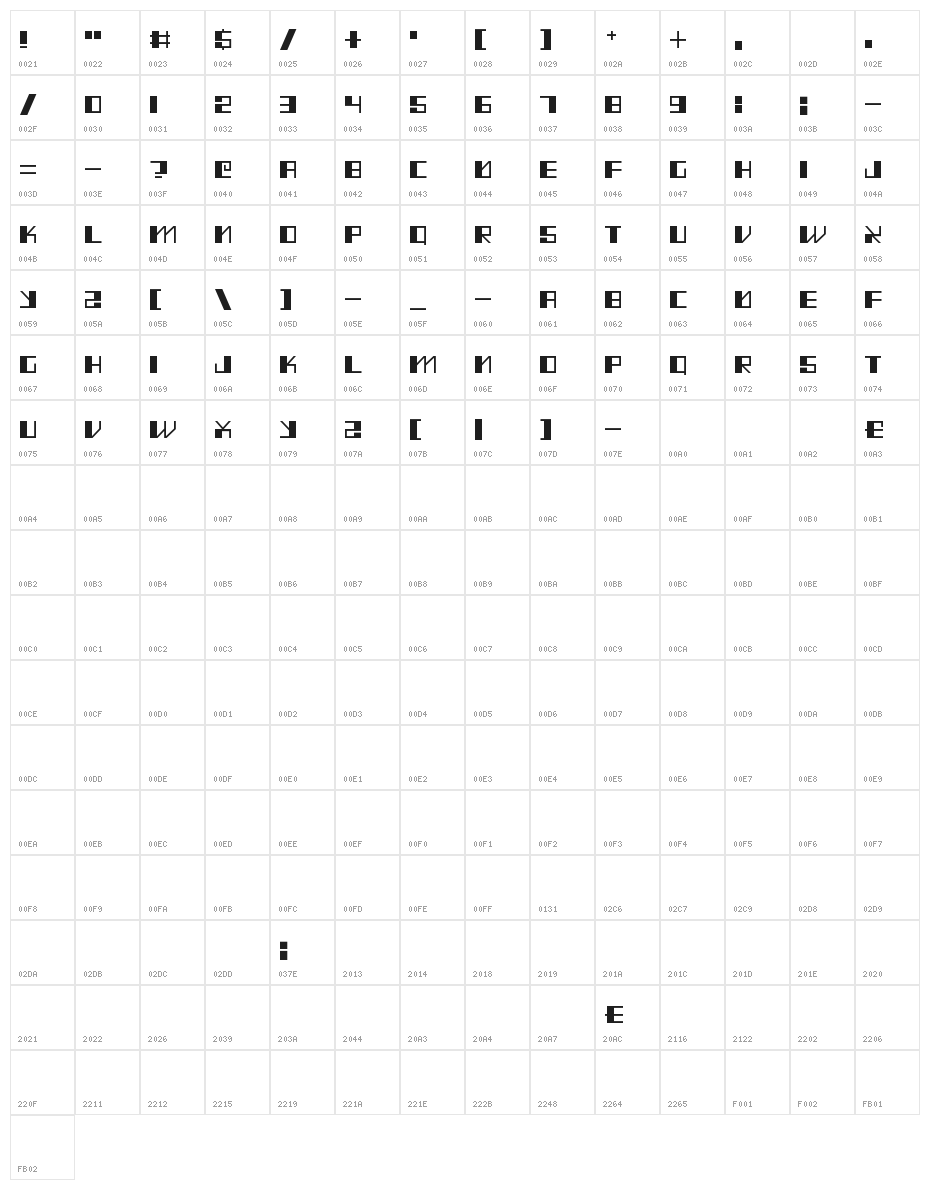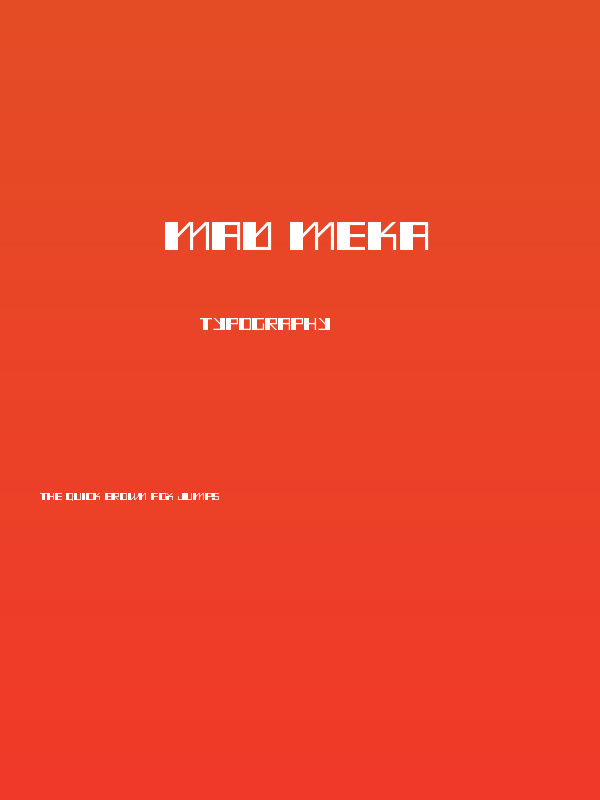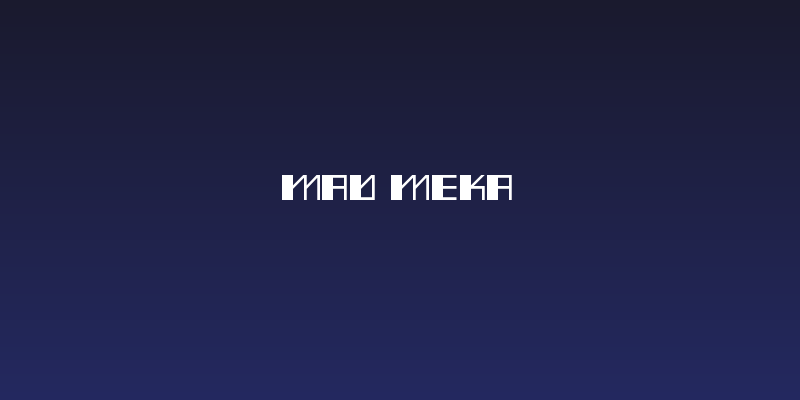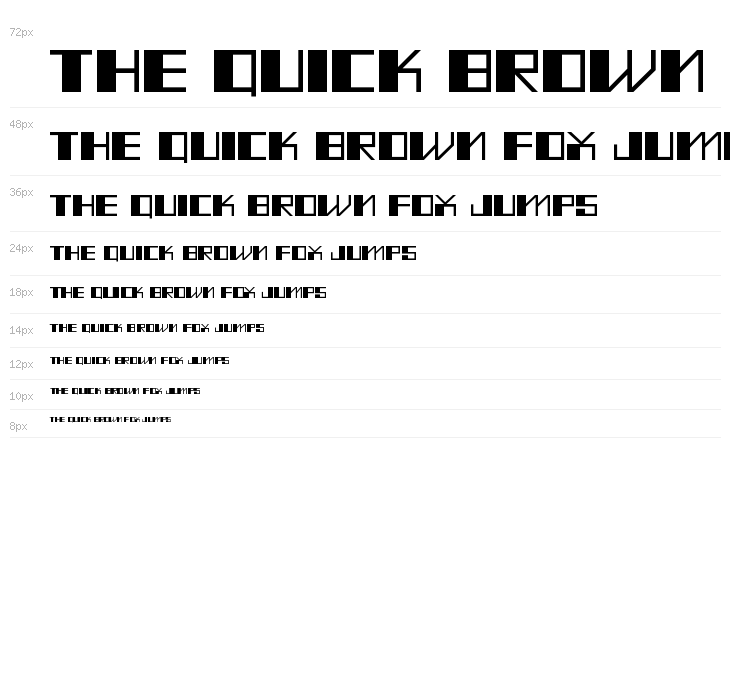
Mad Meka Font
Mad Meka Description
This font features a bold, geometric design with a futuristic and mechanical aesthetic. The characters are constructed with sharp angles and straight lines, giving it a blocky, industrial feel. The uppercase and lowercase letters maintain a consistent style, with uniform height and width, enhancing its monospaced appearance. The numbers and special characters follow the same design principles, ensuring a cohesive look across all elements. The font's unique style makes it stand out, with a strong emphasis on symmetry and structure, ideal for projects that require a modern and edgy look.
| Proposed Projects | Ideal for technology branding, video game titles, sci-fi posters, and modern digital interfaces. |